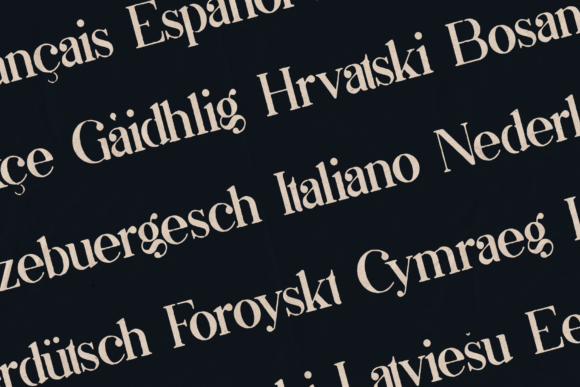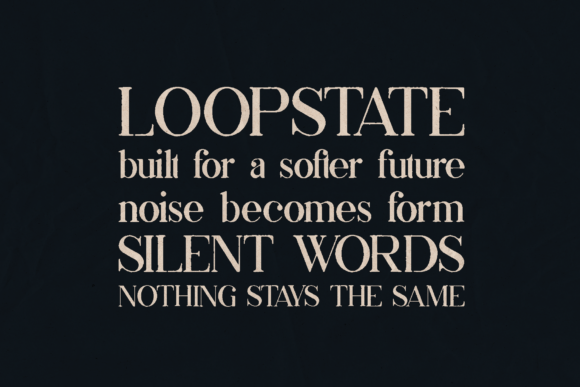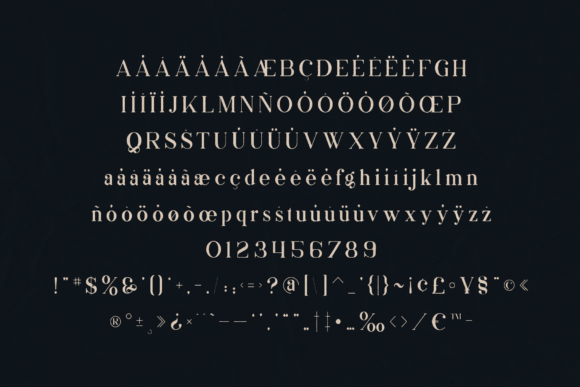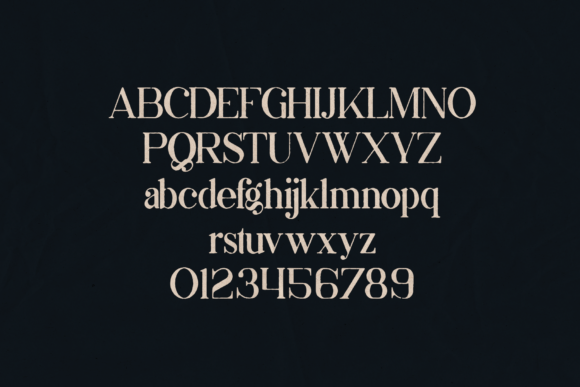
Embracing Imperfection in Design
Have you ever been working on a project, pouring your heart and soul into every detail, only to find yourself getting caught up in a sea of perfectionism? You tweak and refine, striving for that elusive perfect balance between aesthetics and functionality. But what if that’s exactly what’s holding you back?
Enter the Akrasia Font, a beautiful, organic serif font that celebrates the beauty of imperfection. Designed to evoke the feeling of handcrafted letterforms, Akrasia brings a touch of warmth and authenticity to any design project. Whether you’re working on a branding campaign, editorial layout, or book cover, this typeface is the perfect addition to your toolkit. With its soft edges, subtle texture, and calm rhythm, Akrasia delivers a sense of calm and trust that’s invaluable in today’s fast-paced design world.
Akrasia Font Key Features
- Font Family: Akrasia is a serif font designed to provide a high level of readability and aesthetic appeal. It comes in multiple weights, from Light to Bold.
- Unique Characteristics: Akrasia features a unique blend of classic and modern design elements, making it suitable for both traditional and contemporary designs.
- Character Set: The font includes a comprehensive character set, covering Latin, Greek, and Cyrillic alphabets, as well as a range of punctuation and special characters.
Akrasia Font Review
I recently had the chance to work with the Akrasia font, and I must say it’s an interesting addition to any design project. ✨ One of the things that immediately caught my attention was its unique blend of modern and vintage elements. The font’s curves and lines are carefully crafted to evoke a sense of elegance and sophistication.
Here are some of the things that work well in Akrasia:
- ✨ High level of customization: The font offers a wide range of styles and weights, making it easy to find the perfect fit for any project.
- ✨ Excellent legibility: Akrasia is easy to read, even at smaller font sizes, which makes it a great choice for body text and other large blocks of text.
- ✨ Beautiful typography: The font’s unique design elements add a touch of personality to any design project.
- ⚠️ Limited support for non-Latin scripts: If you need to work with languages that use non-Latin scripts, Akrasia may not be the best choice.
- ⚠️ Some compatibility issues with older software: I experienced a few issues with Akrasia in older versions of Adobe Illustrator.
Overall, I’m impressed with the Akrasia font. While it may not be perfect, its unique design elements and high level of customization make it a great choice for designers looking to add some personality to their projects.
Tip: Use Akrasia Font for headings or titles to create a visually appealing contrast with the rest of the design.
Tip: Use Akrasia Font for typographic effects or to create a sense of hierarchy in your design.
Tip: Use Akrasia Font to add a touch of elegance and sophistication to your presentations or documents.
Akrasia Font is ideal for:
- Book covers and interior design
- Business cards and stationery
- Typography-based art and design
Remember to experiment with different font sizes, colors, and styles to get the most out of Akrasia Font.
Merriweather is more formal and traditional compared to Akrasia Font, which has a more modern and clean feel. While Akrasia Font is more suitable for digital products and interfaces, Merriweather is better suited for print materials or traditional publications.